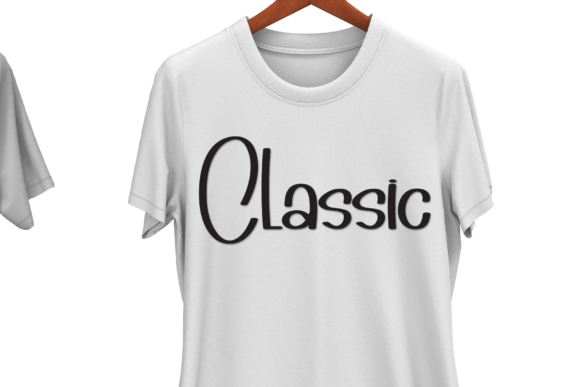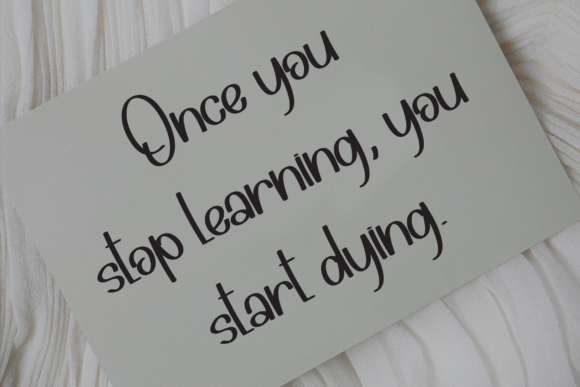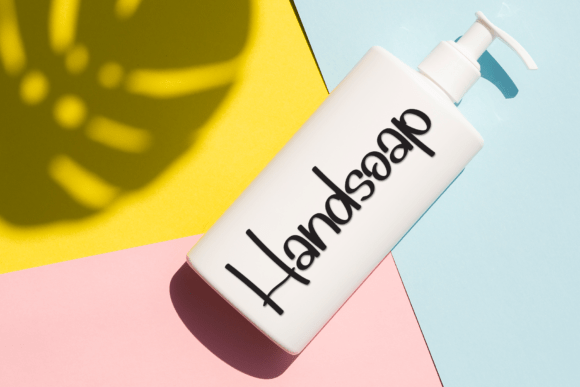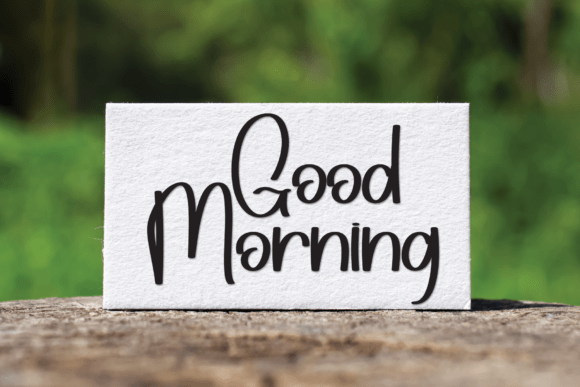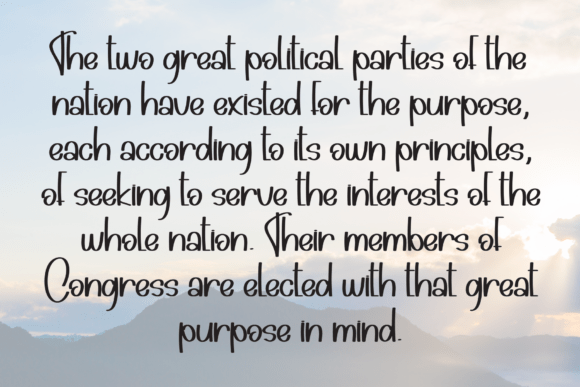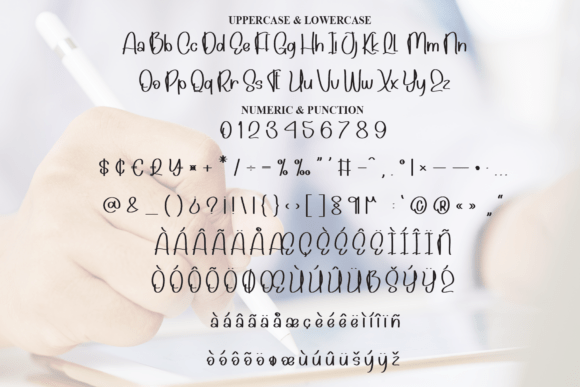
The Art of Authentic Expression: Unlocking the Power of Digital Signature Font
There’s something special about holding a pen and letting your thoughts flow onto paper. It’s a moment of pure creativity, where the lines between art and expression blur. For designers, this feeling is what drives them to craft unique and captivating experiences. And for those who want to bring a touch of authenticity to their digital designs, the Digital Signature Font is the perfect tool.
This elegant handwritten script font is designed to emulate the flow of authentic penmanship, with tall, fluid strokes and creative ligatures that add a sophisticated yet friendly character to any design project. Whether you’re creating a brand identity, crafting a logo, or simply want to add a personal touch to your digital notes, the Digital Signature Font is an invaluable asset for designers.
Digital Signature Font Key Features
- Unique Characteristics: The font is specifically designed to mimic handwritten signatures, providing a natural and authentic look to digital signatures.
- Customization Options: Users can adjust font styles, colors, and sizes to match their brand identity and preferences.
Digital Signature Font Review
Overall, I’d say the Digital Signature Font is a decent choice for designers looking to add a personal touch to their digital signatures. ✨ Here are some of its strengths:
- Customizable: The font allows for a range of customization options, from font size to color, making it easy to tailor to your brand’s aesthetic.
- Professional look: The font itself has a clean, professional appearance that’s suitable for both personal and business use.
- Limited expressiveness: The font’s design is quite straightforward, which may limit its ability to convey complex emotions or ideas.
- Not ideal for creative use: While the font is suitable for digital signatures, it may not be the best choice for creative projects that require more visual interest.
Overall, I’d give the Digital Signature Font 3.5 out of 5 stars. It’s a solid choice for designers looking to add a professional touch to their digital signatures, but it may not be the best fit for more creative or complex projects.
Digital signature fonts are commonly used for:
- Signing documents and contracts.
- Creating personalized stationery and business cards.
- Adding a professional touch to presentations and reports.